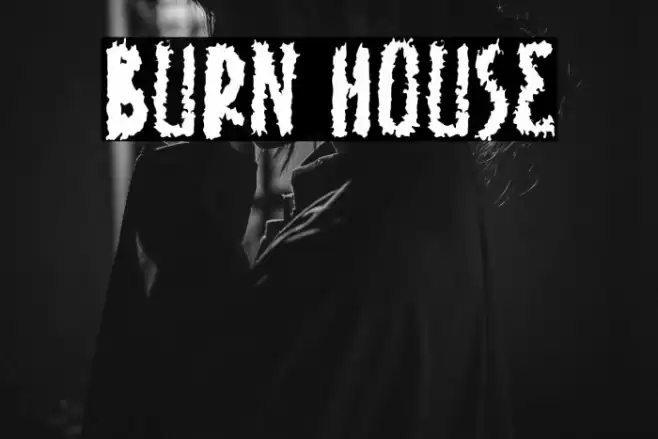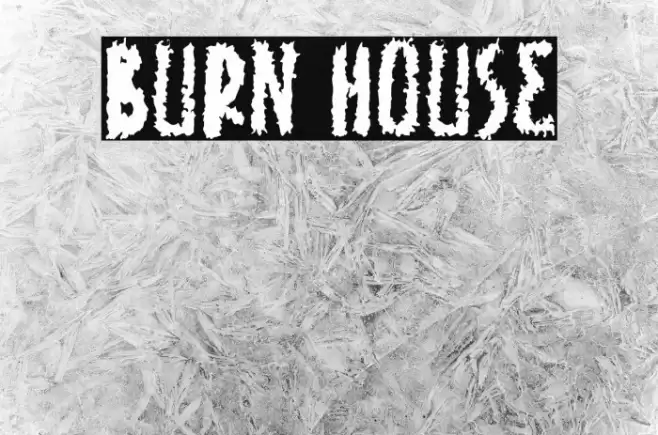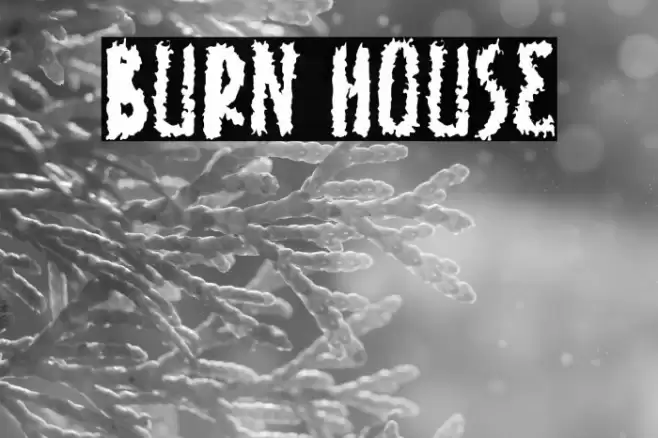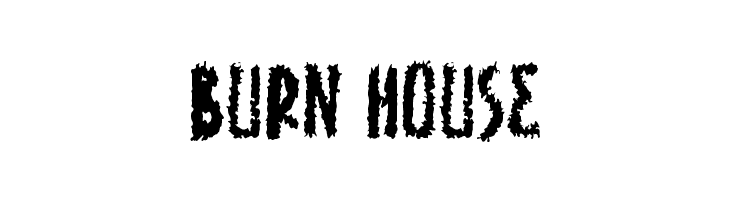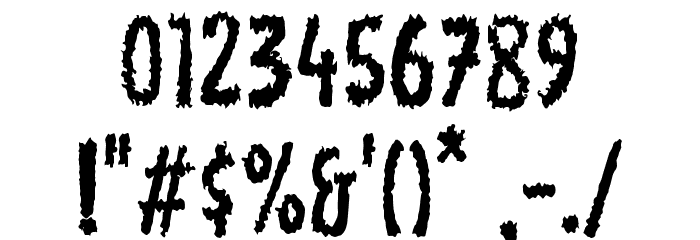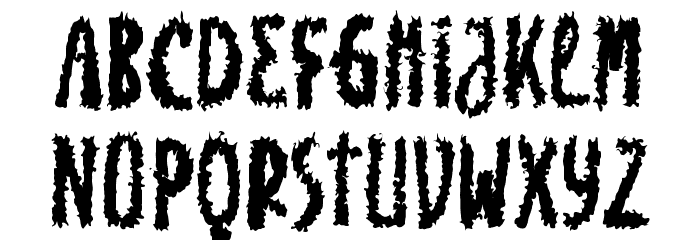
Burn House Font
Burn House Description
This font features a bold and fiery design, with each character appearing as if it's engulfed in flames. The jagged edges and irregular shapes give it a dynamic and intense look, perfect for grabbing attention. The uppercase and lowercase letters maintain a consistent style, with numbers and special characters following suit. This font is ideal for projects that require a dramatic and eye-catching aesthetic, such as horror-themed designs or promotional materials for events. Its unique appearance makes it stand out, ensuring that any text set in this font will not go unnoticed.
A bold, fiery font with jagged, flame-like edges for dramatic impact from Uncategorized fonts.
- Proposed Projects: Ideal for horror-themed designs, event promotions, and eye-catching posters.
- Contrast: High
- Overall Style: Decorative